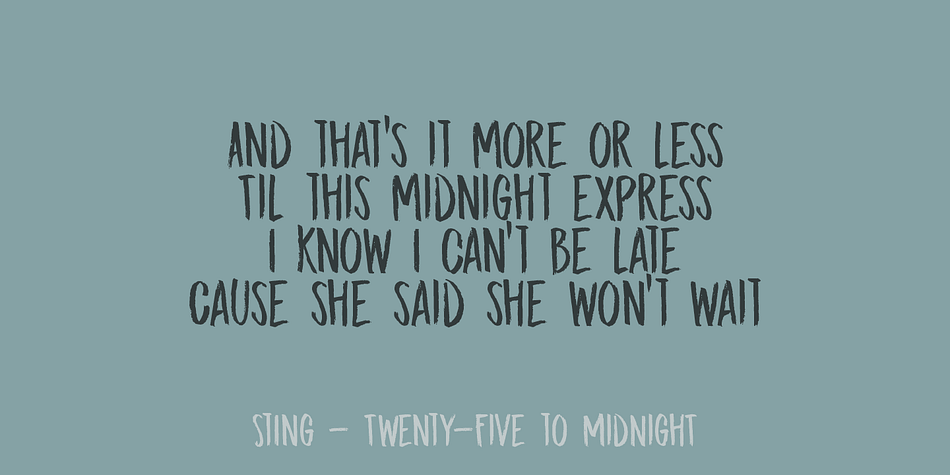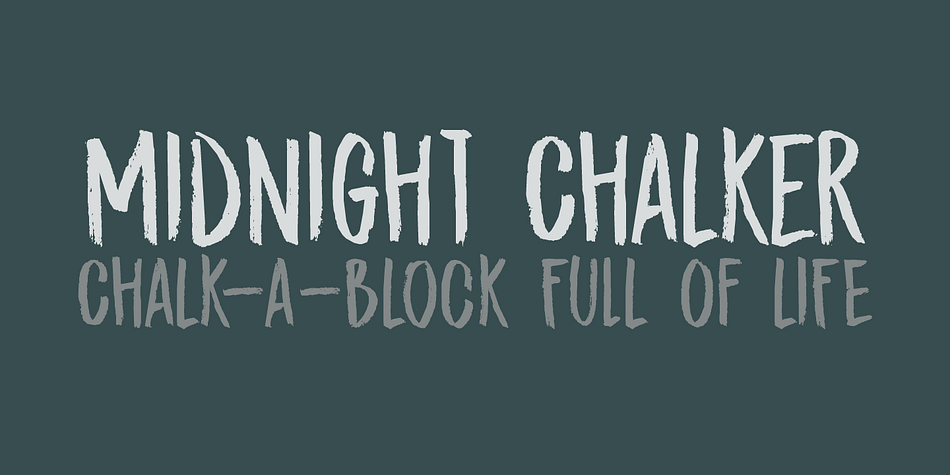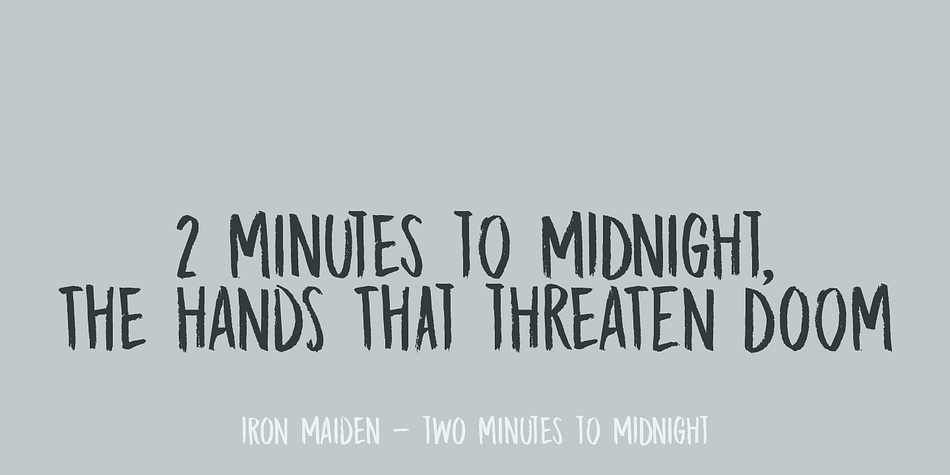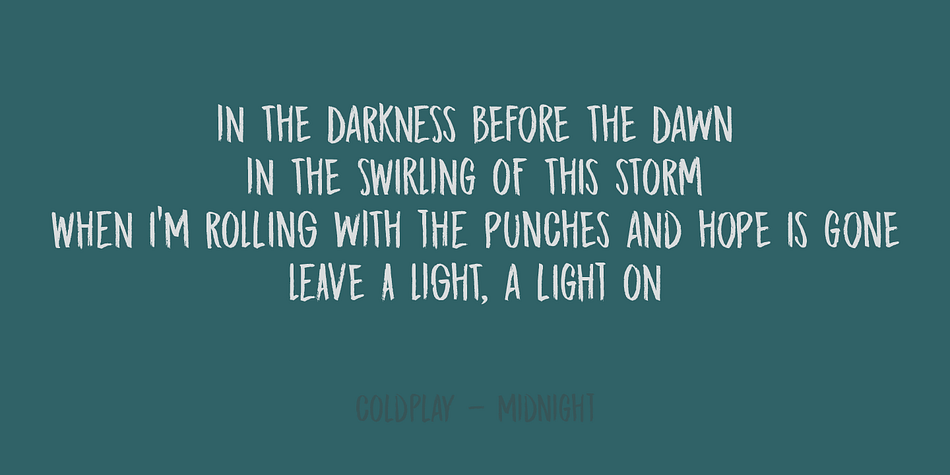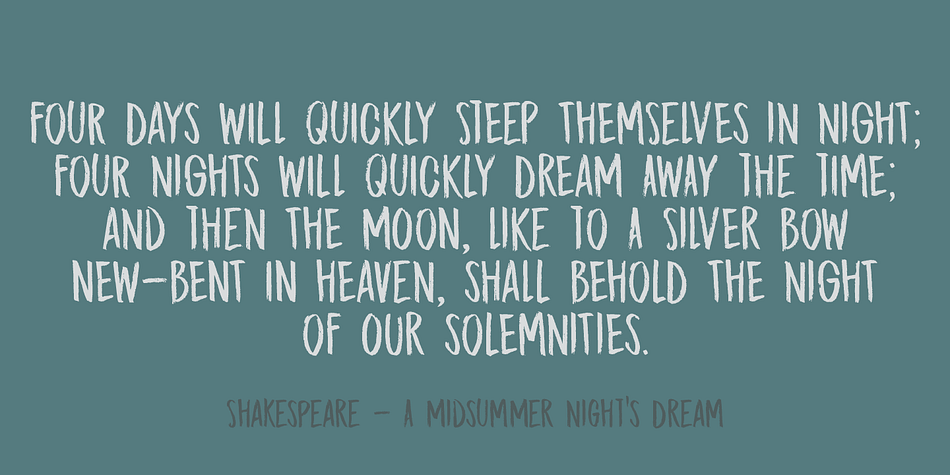
Designed by David Kerkhoff, Midnight Chalker is a hand display font family. This typeface has two styles and was published by Hanoded.
Midnight Chalker is, well, a chalk(ish) font and it was (fro the greater part) created around the midnight hour. That’s usually when I get my inspiration.
Midnight Chalker is a tall, eroded font - all caps, but the upper and lower case differ and can be mixed. Of course it comes with more diacritics than you can throw a chalkboard at.